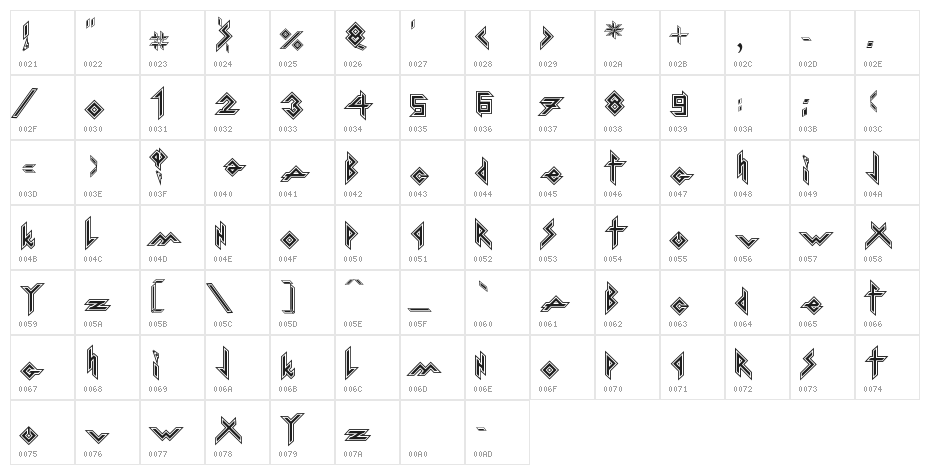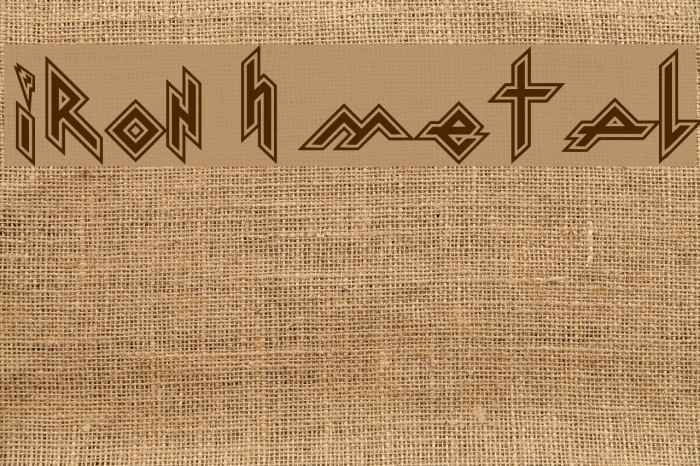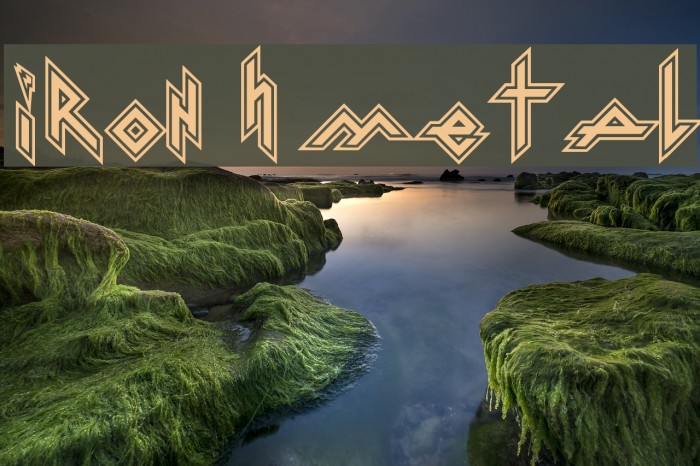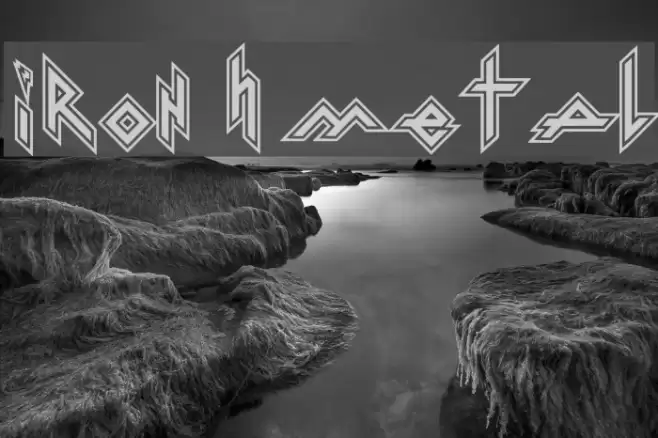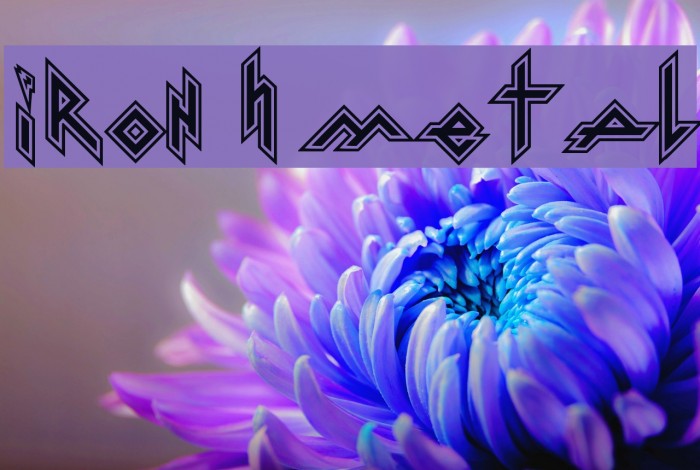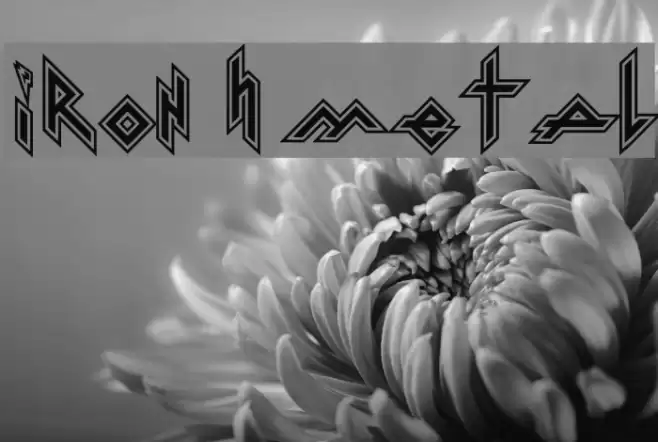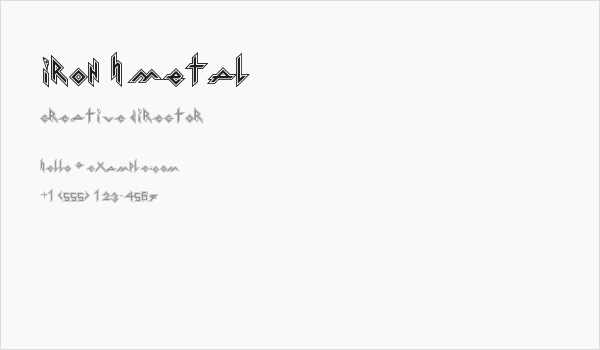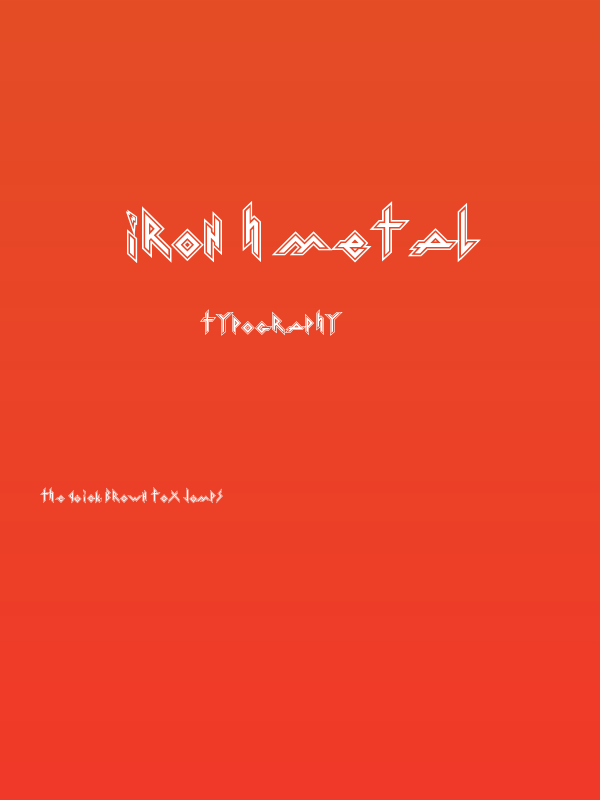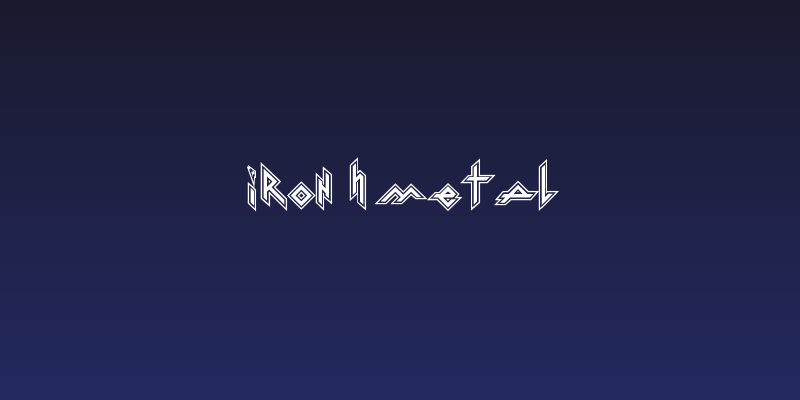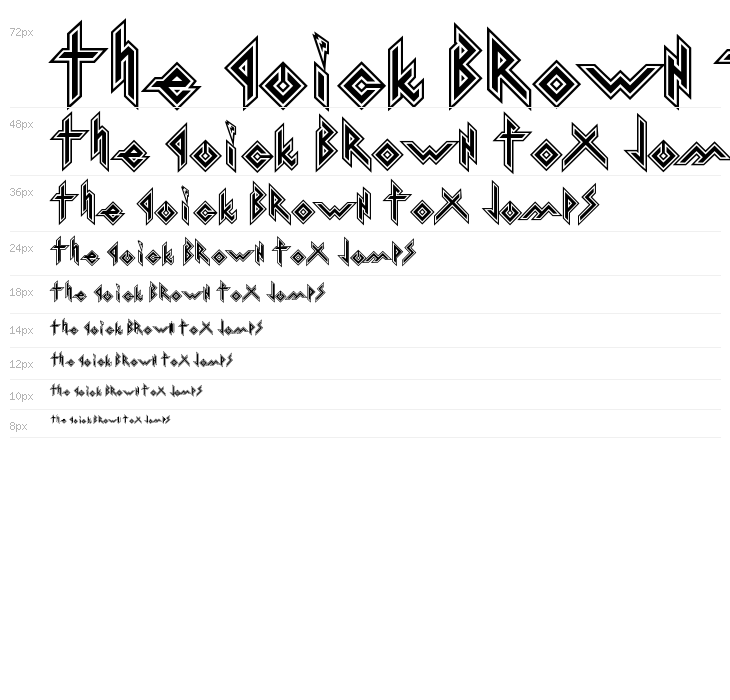
Iron H Metal Font
Iron H Metal Description
This font features a bold, angular design with a distinctly metallic and industrial aesthetic. Each character is crafted with sharp edges and geometric forms, giving it a futuristic and edgy appearance. The letters are outlined with a thick border, enhancing their boldness and making them stand out prominently. The style is reminiscent of heavy metal music logos, with a dynamic and aggressive feel. The numbers and special characters maintain the same angular and bold characteristics, ensuring consistency throughout the typeface.
| Use Case | Logos, Headlines |
| Proposed Projects | Ideal for music album covers, especially in the rock or metal genres, event posters, or any design needing a strong, edgy look. |